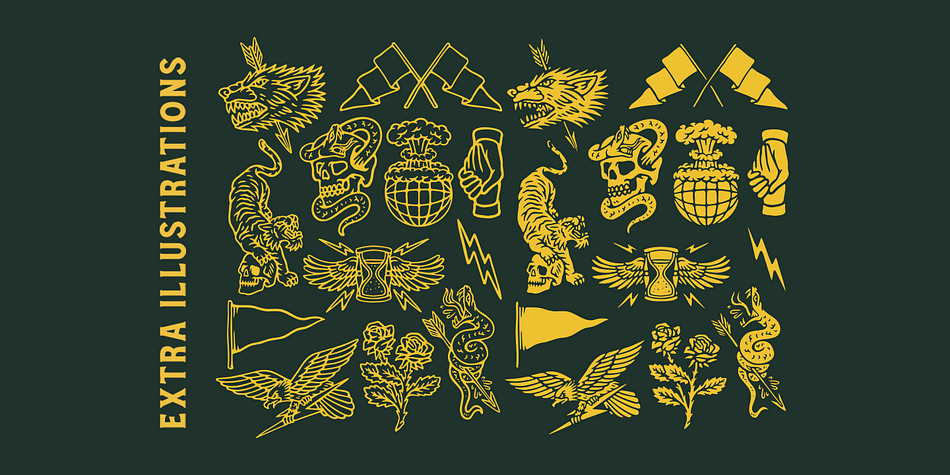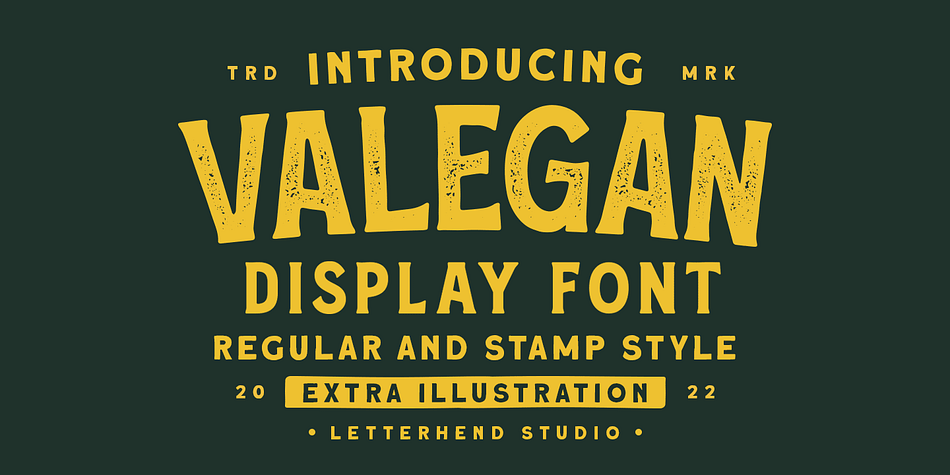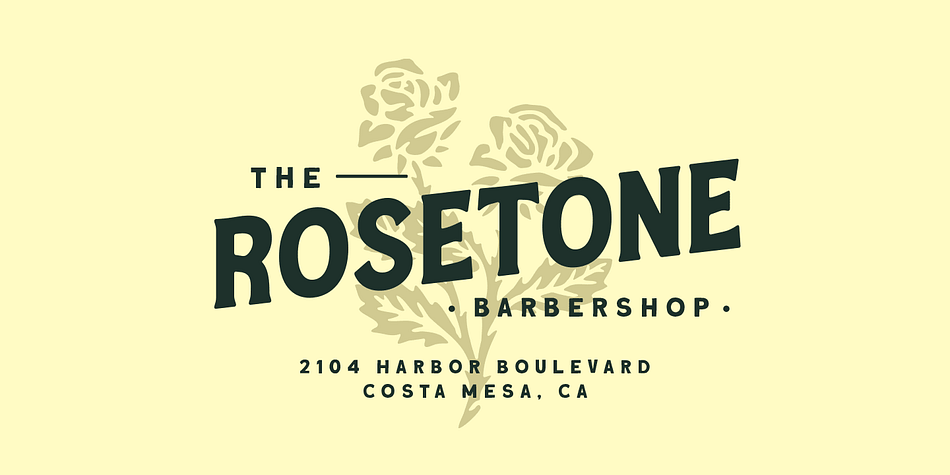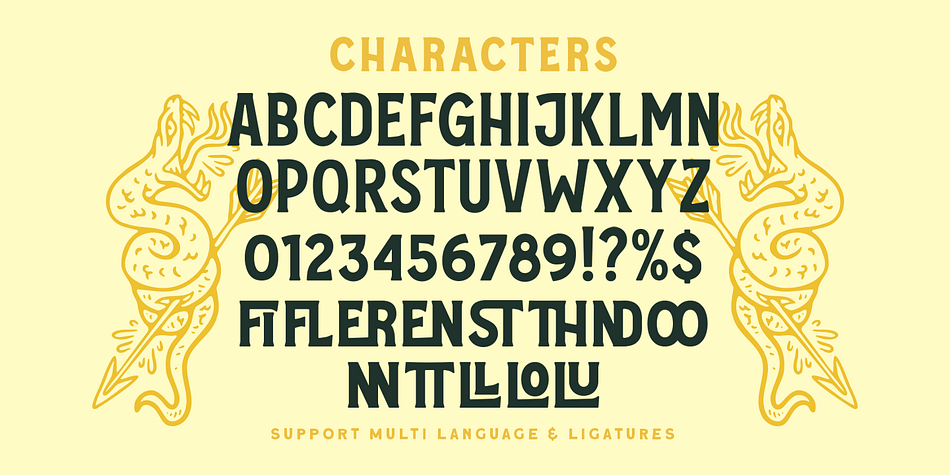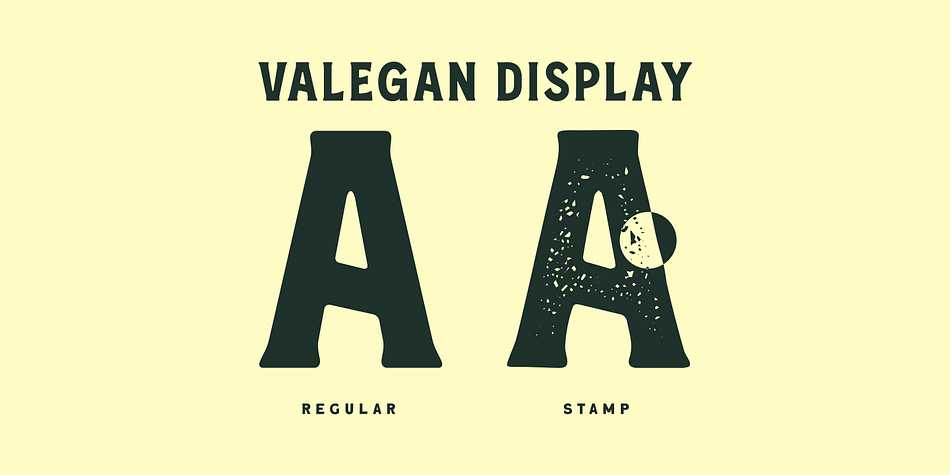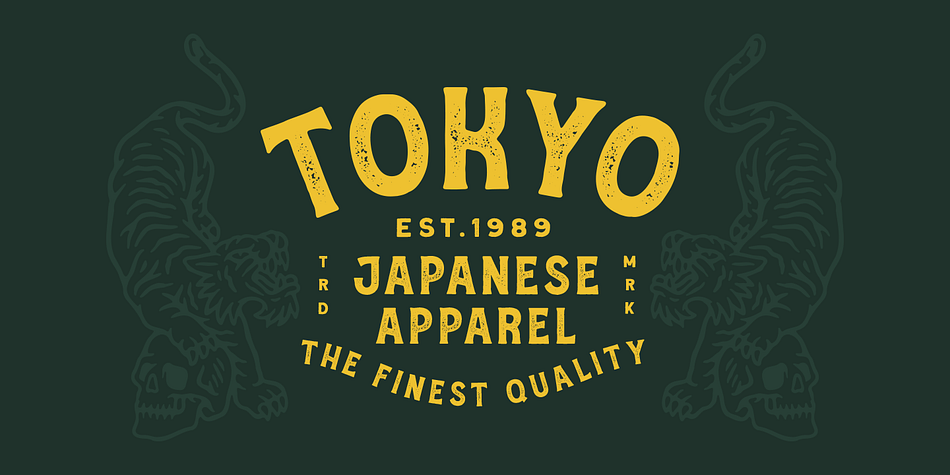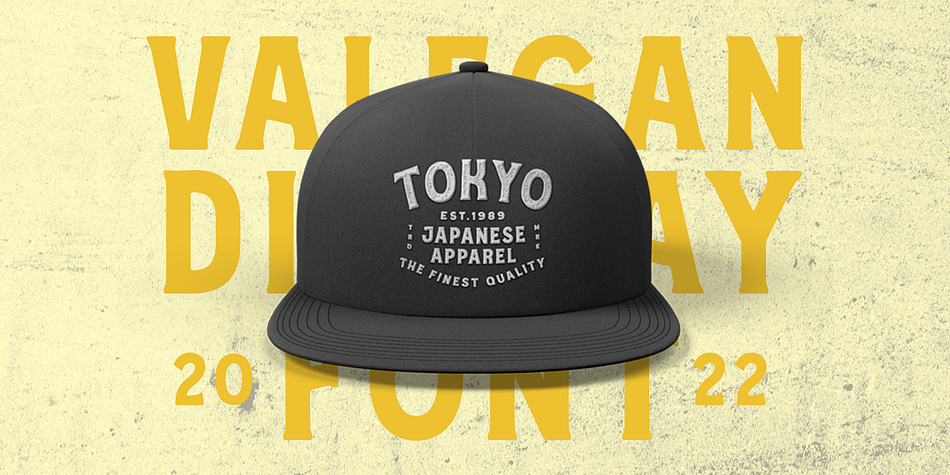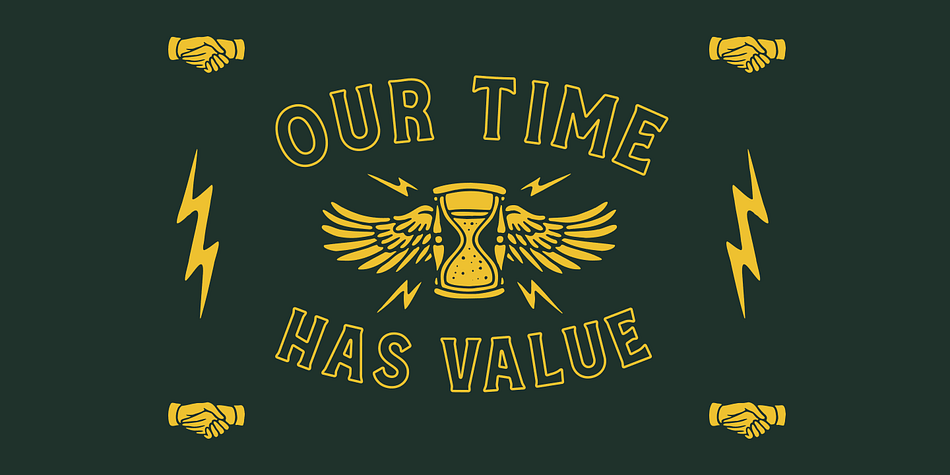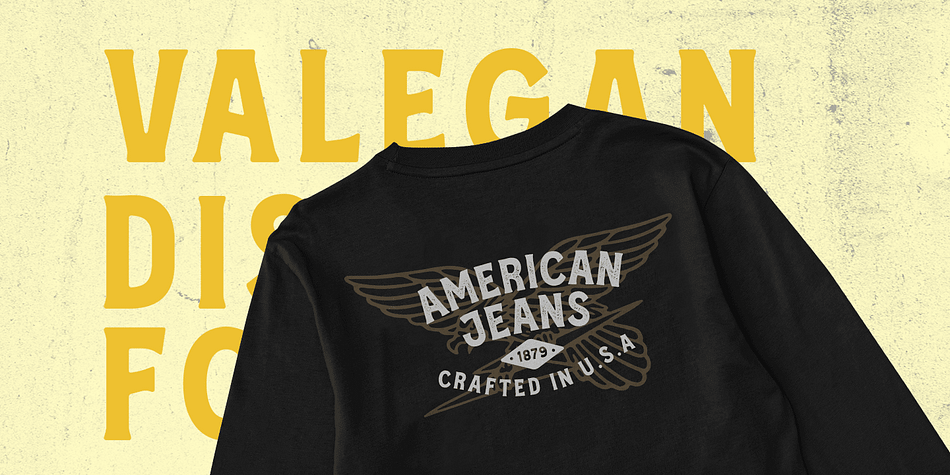
Designed by Hendry Juanda, Valegan is a display, display serif and wood type font family. This typeface has two styles and was published by Letterhend Studio.
Introducing, Valegan Display Font, display font with a touch of vintage look and feel. You will also get hand drawn object as addition to your project, great to use as t-shirt illustration!
This font duo is also perfectly made to be applied especially in logo, headline, signage and the other various formal forms such as invitations, labels, logos, magazines, books, greeting / wedding cards, packaging, fashion, make up, stationery, novels, labels or any type of advertising purpose.
- Regular & Stamp Style
- alternates / swashes and ligatures
- 12 hand drawn Illustrations